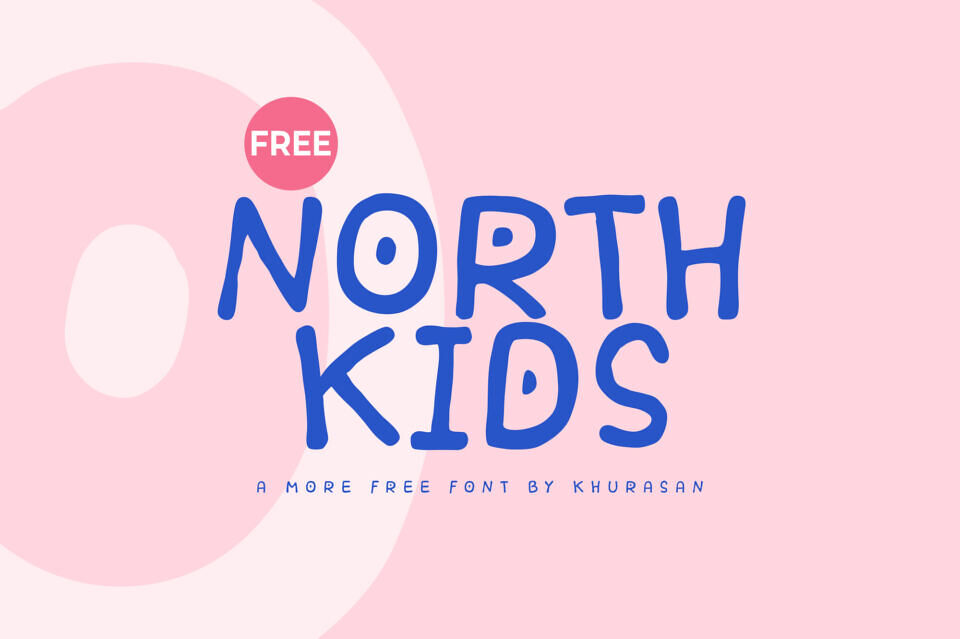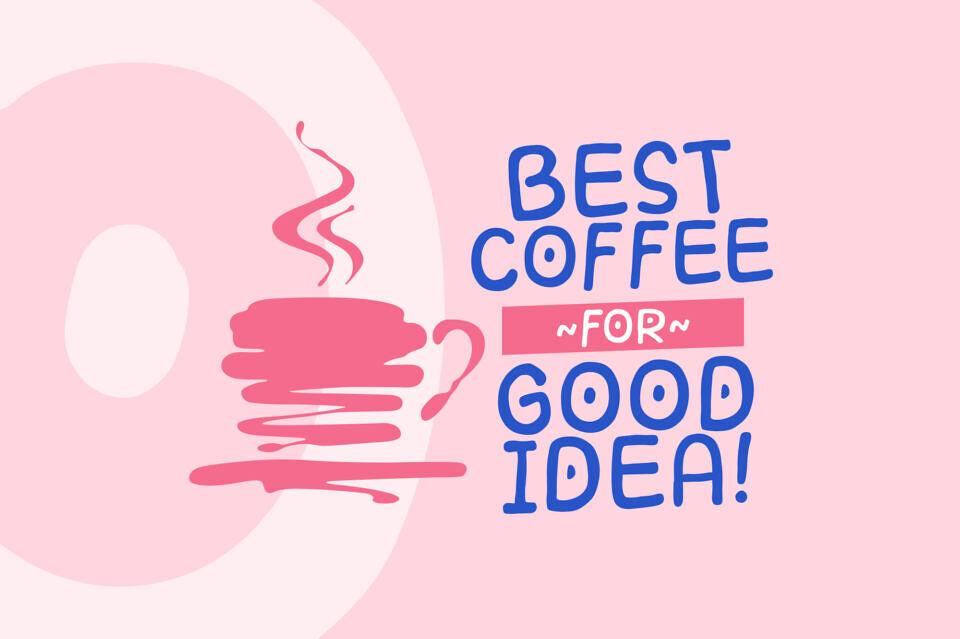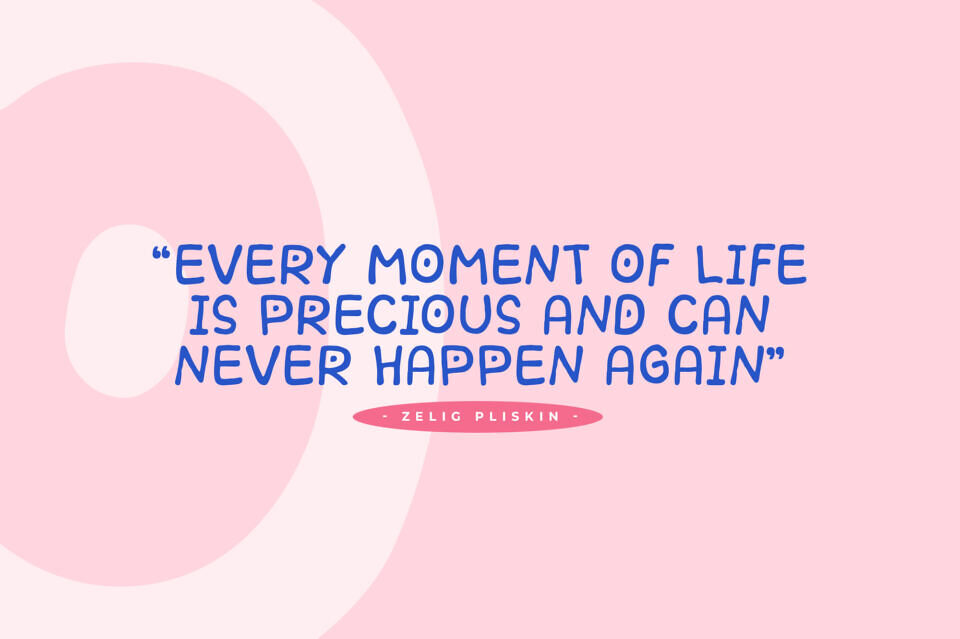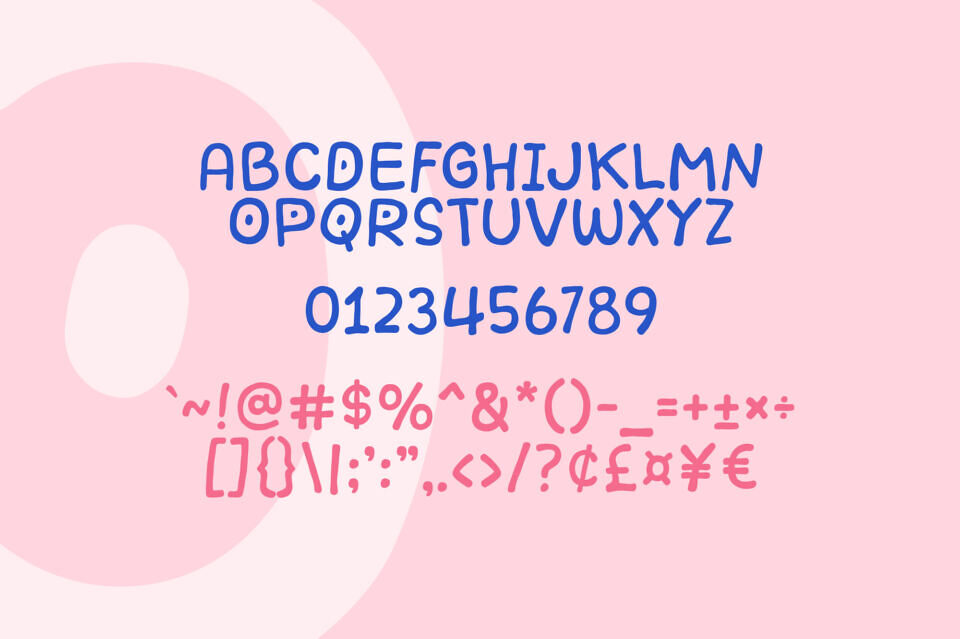
Add a playful touch to your project with North Kids, a whimsical display font. Its handwritten style features uneven strokes, irregular lines, and geometric accents.
This font captures the nostalgic feel of childhood crafts and is perfect for projects like toy shop branding, nursery artwork, storybook headings, event posters, and social media graphics that need a fun, youthful vibe.